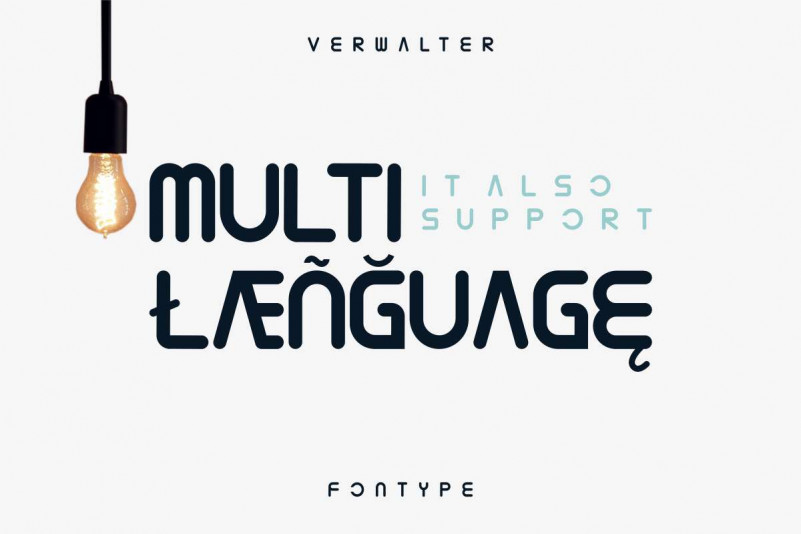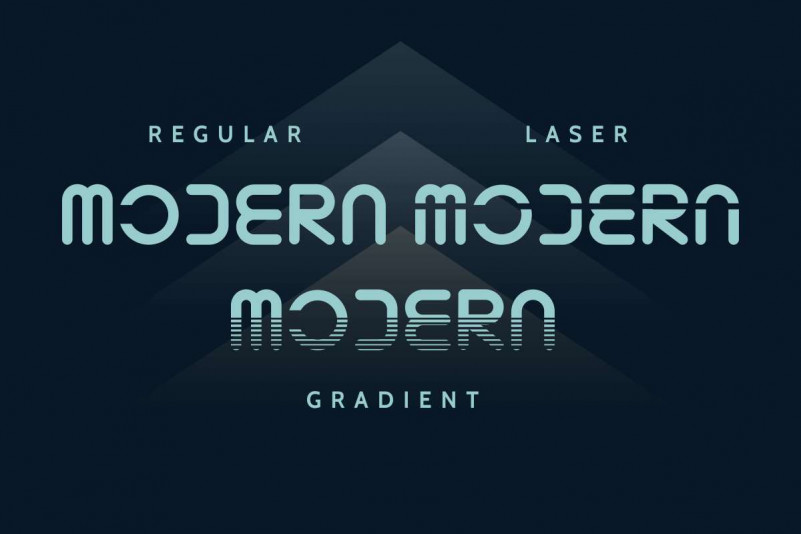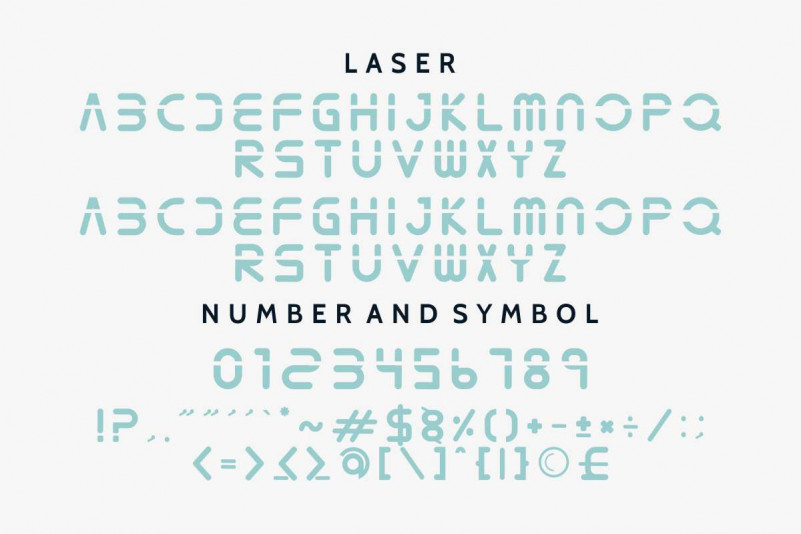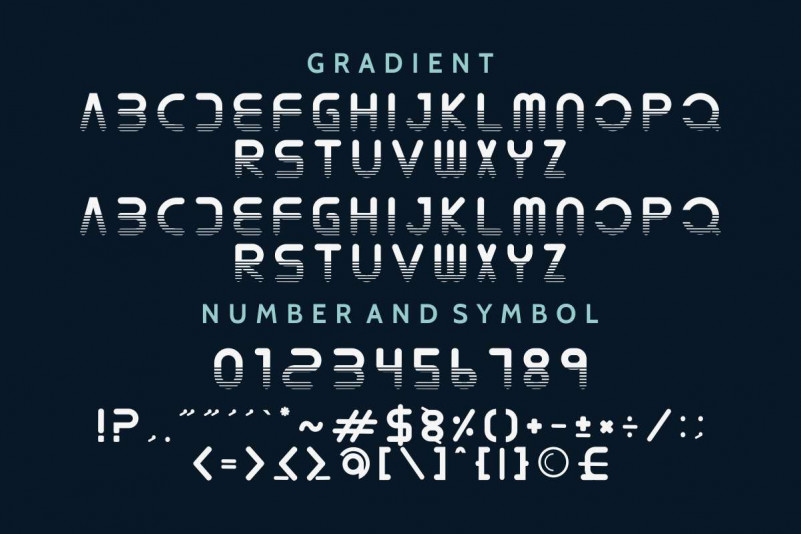
Verwalter Futuristic Font
Hi Everyone! Introducing our newest font : Verwalter Futuristic Font! Verwalter is a display decorative futuristic techno modern font. It contains three styles : Modern, Monospaced Laser , and Gradient 3D typeface. It also support multilangguage characters.